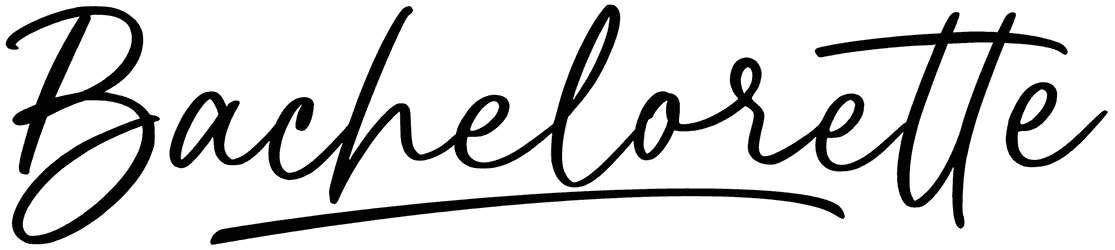
Bachelorette Font
Handwritten words are one of the best selections to approach the viewers, and this handwritten font can be a nice pickup to do it. The soft and delicate form of the Bachelorette font’s characters will give a ravishing and chic mood to your layouts, like a bridal shower flyer. Even without numbers, this thank you font will be a beautiful item for your innovative designs.
Example: Bach_elorUse multiple underscores to make different swashes.